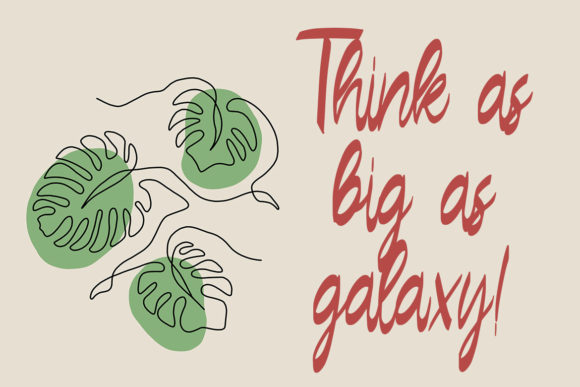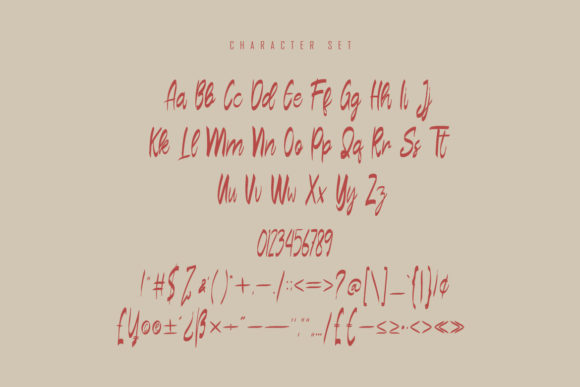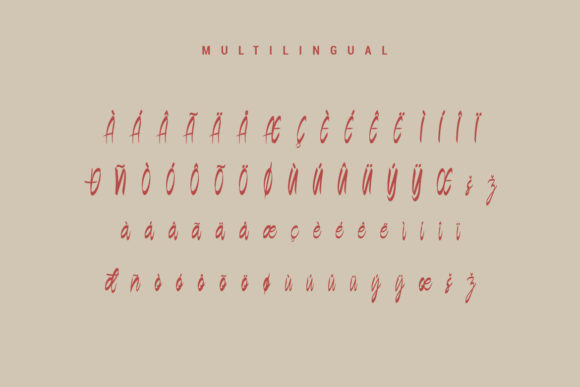
Introduction to Safloke Font
Do you remember that moment when you stumbled upon the perfect font, and your creative project suddenly came alive? For designers, finding the right font can be a game-changer. It’s the difference between a decent design and a stunning one. And that’s exactly what the Safloke Font offers – a unique and beautiful touch that will elevate your work to the next level.
As a versatile and timeless handwritten font, Safloke Font is the perfect choice for creating eye-catching logos, branding, and quotes. Its high-quality design makes it a valuable resource for any designer looking to add a personal touch to their projects. Whether you’re working on a personal or commercial project, Safloke Font is a must-have in your design arsenal.
Key Features of Safloke Font
- High-quality, professional font design ideal for creative projects, including graphic design, digital art, and more.
- Includes a range of unique characters and glyphs, perfect for adding a touch of personality to creative projects.
- Perfect for use in digital design, including logos, icons, and typography for websites, social media, and more.
Honest Review: Safloke Font
One of the things that really works well with the Safloke Font is its versatility. It’s perfect for a variety of design applications, from logos to brochures, and even works well for digital designs with transparent backgrounds. ✨ The font’s clean lines and sleek design make it a great choice for anyone looking to add a touch of sophistication to their creative project.
Here are some of the key features I love about the Safloke Font:
- High-quality design with a modern aesthetic
- Versatile and suitable for a variety of design applications
However, I do have to mention a few limitations. ⚠️ The font is not suitable for all design projects, particularly those that require a more traditional or classic look. Additionally, the font may not be compatible with all operating systems or software.
Tips for Getting the Most Out of Safloke Font
Experiment with different font sizes, colors, and combinations to achieve the desired look for your design project. Use the font with a transparent background to create a clean and modern appearance. Also, consider using the font in conjunction with other design resources, such as graphics and images, to add depth and visual interest to your project.
The Safloke Font is suitable for a variety of creative projects, including business cards, posters, flyers, and social media graphics. Its high-quality design and transparent background make it an ideal choice for designers who want to create professional-looking visuals without the hassle of complicated design software.